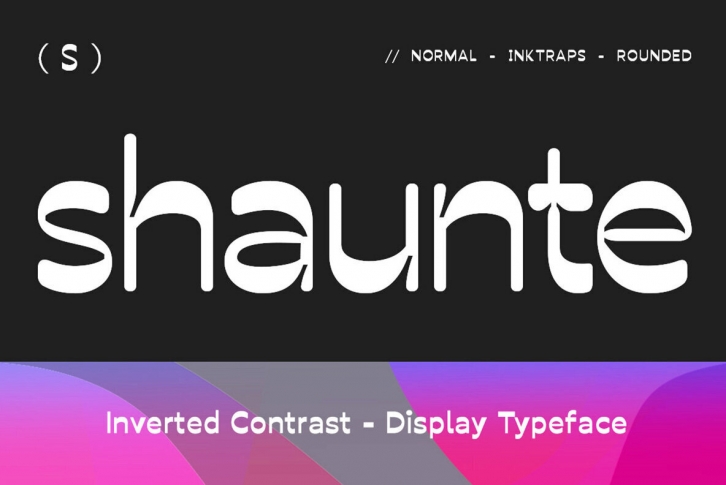
Shaunte is a bold typeface that comes in four styles: normal, ink traps and rounded. It's perfect for use on headings or posters because it has those imperfections which keep things casual while still providing legibility at large sizes.